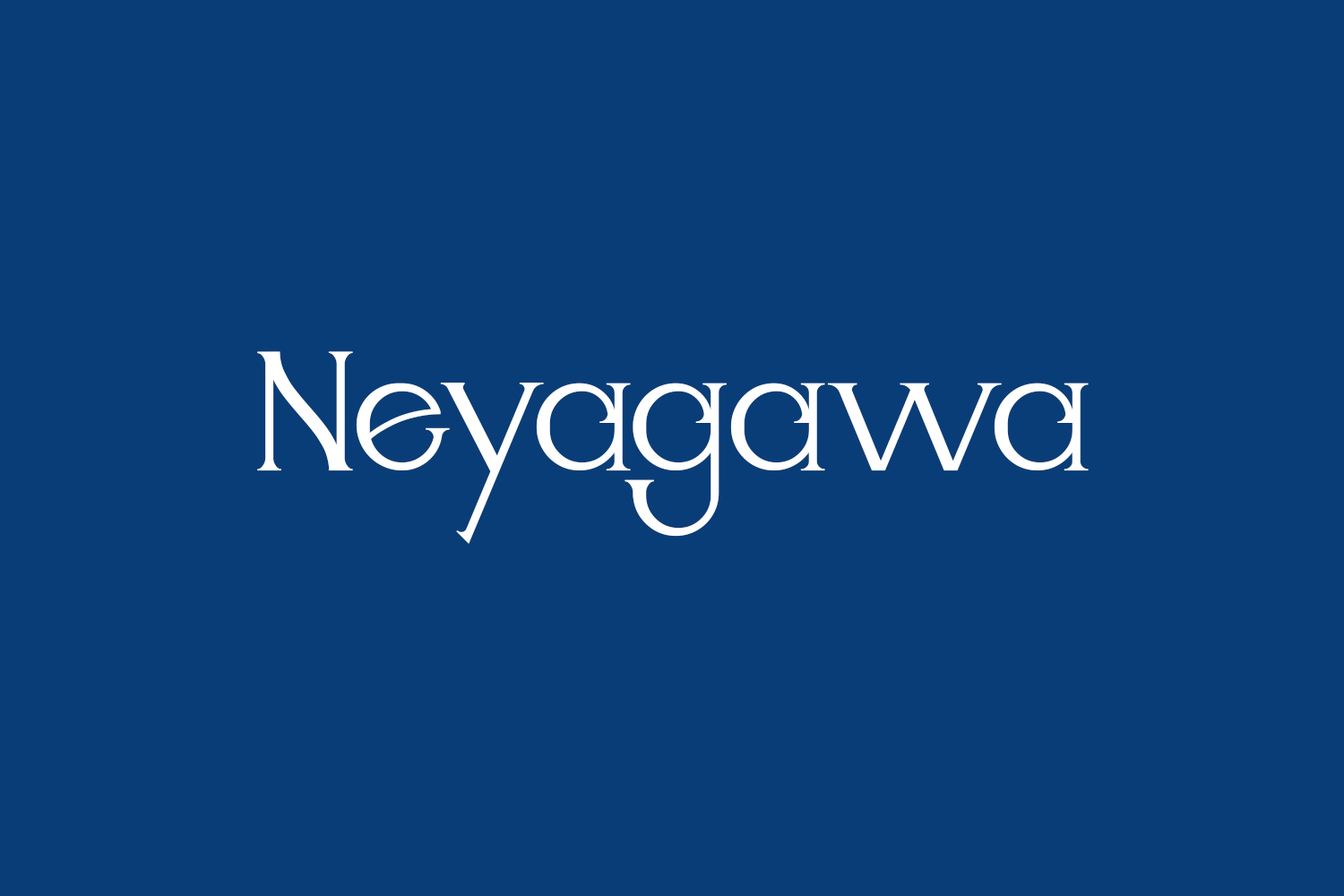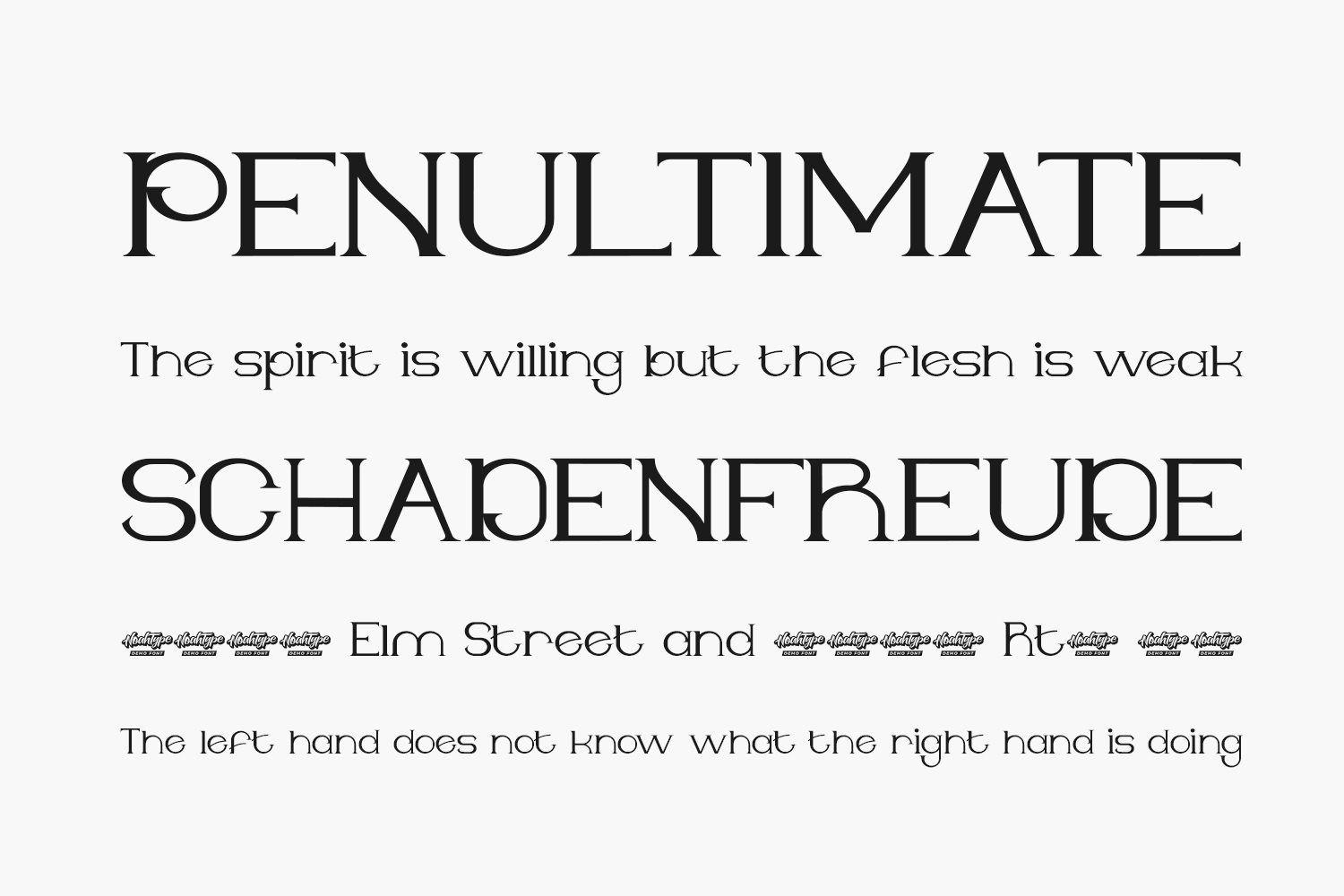
Explore the Neyagawa Free Font Family, a serif font featuring Japanese-style-inspired characters. Elevate your designs with its exquisite feel, bringing a unique and modern touch to any project. Ideal for branding, logos, labels, posters, titles, products, promotions, games, technology, events, musicians, artists, or any contemporary project you envision. Embrace its remarkable versatility and fall in love with the potential to craft spectacular designs that stand out. Neyagawa Font is your key to creating visually stunning and distinctive projects. Download the font for free if you need it for personal use or purchase the full version for commercial use.